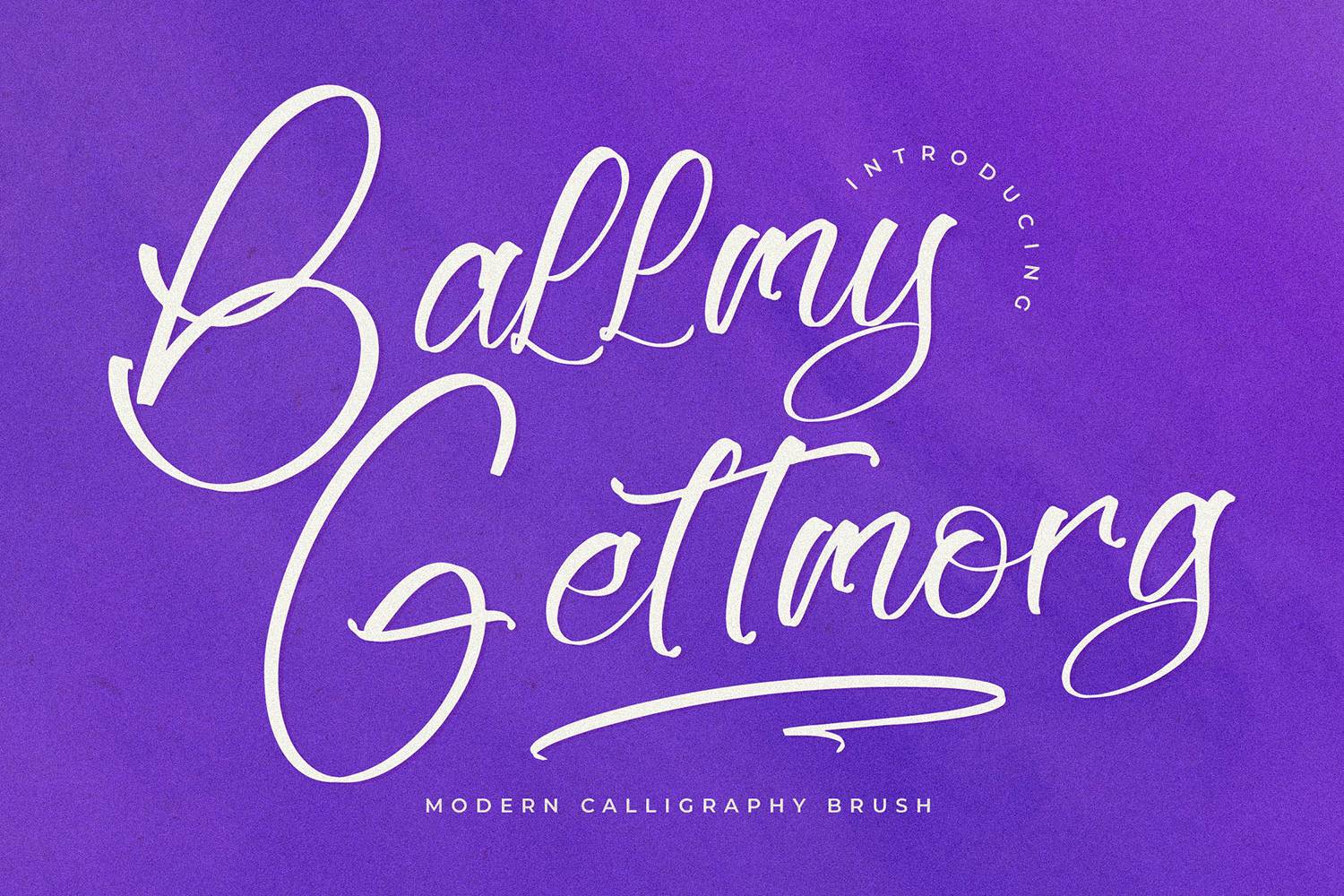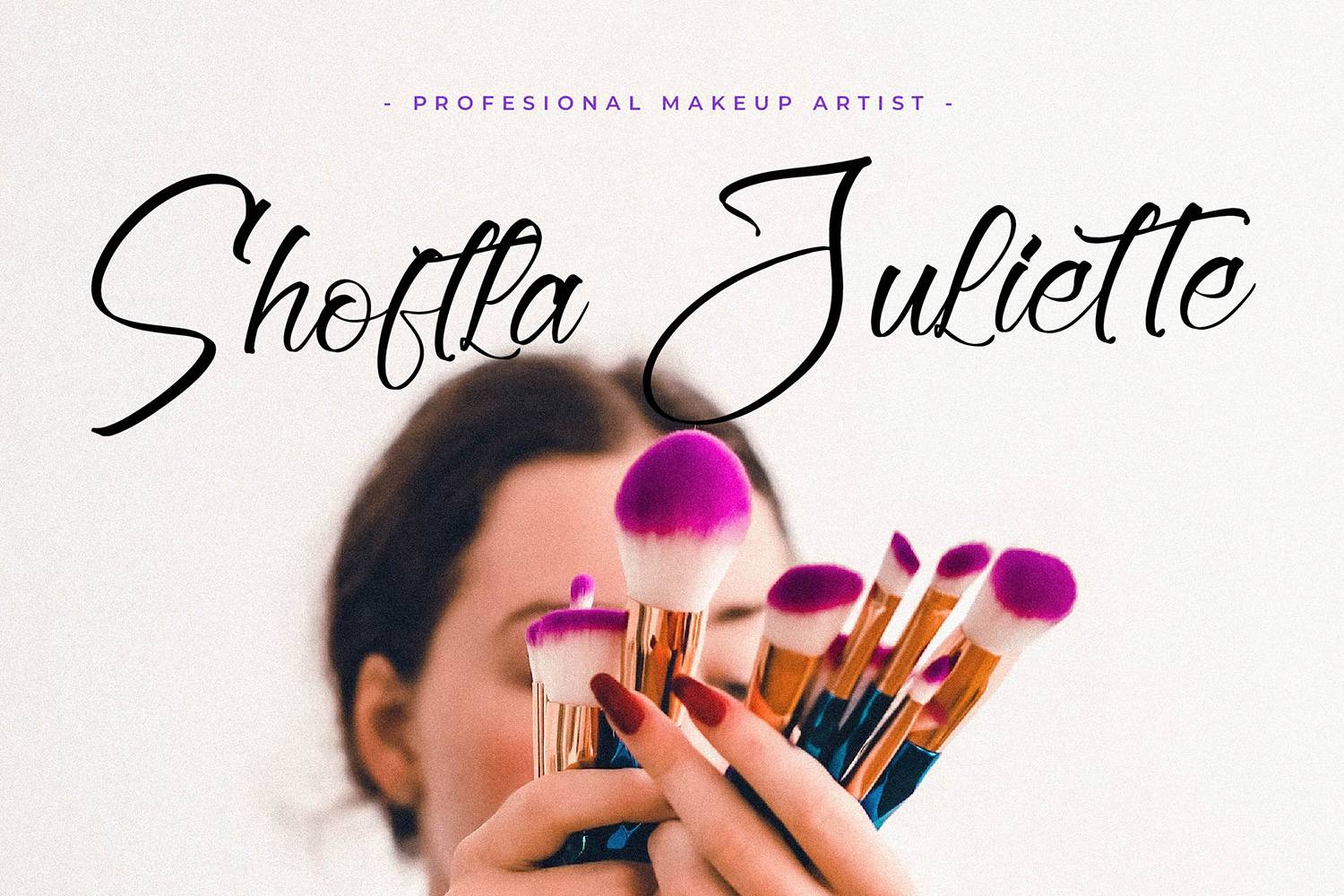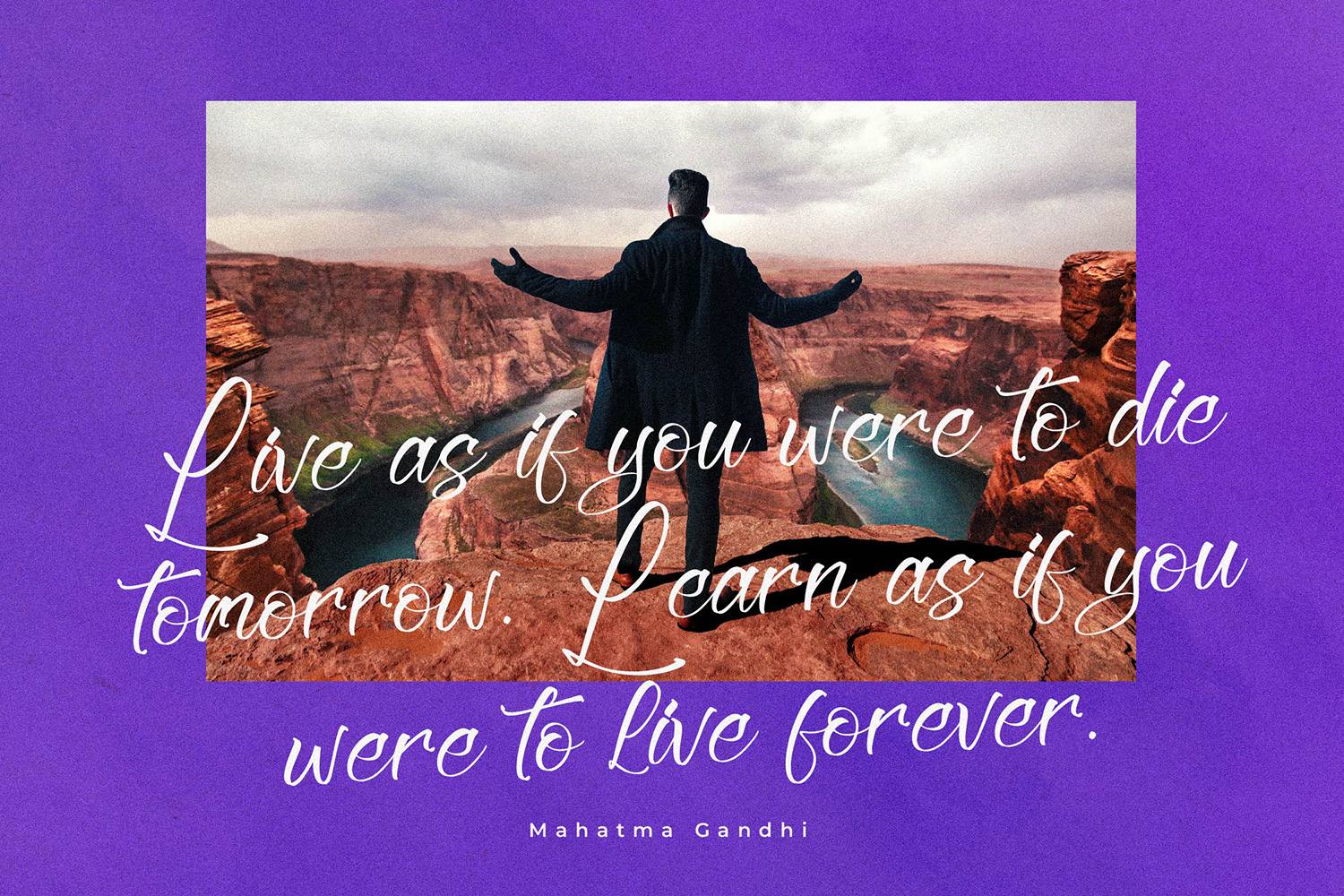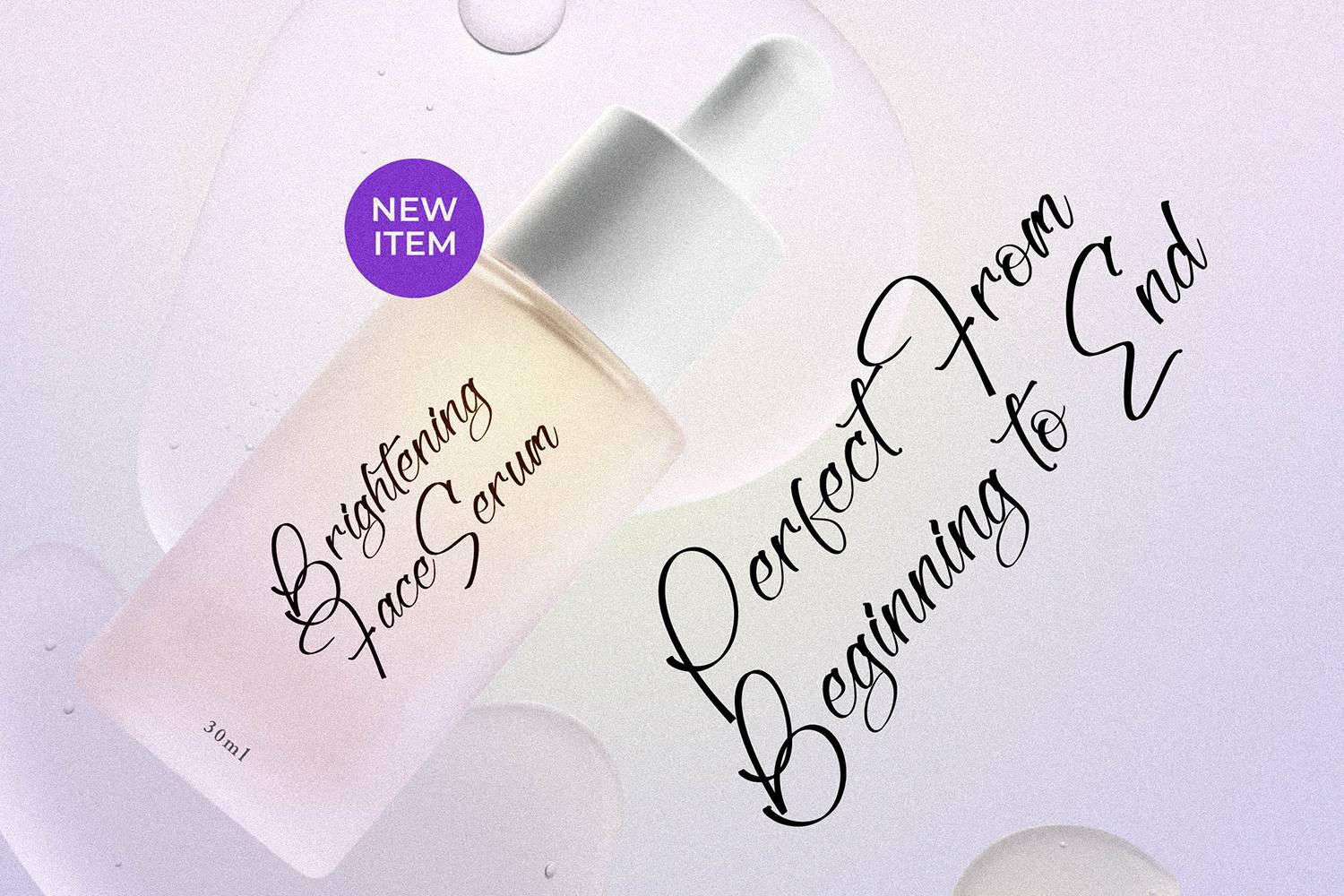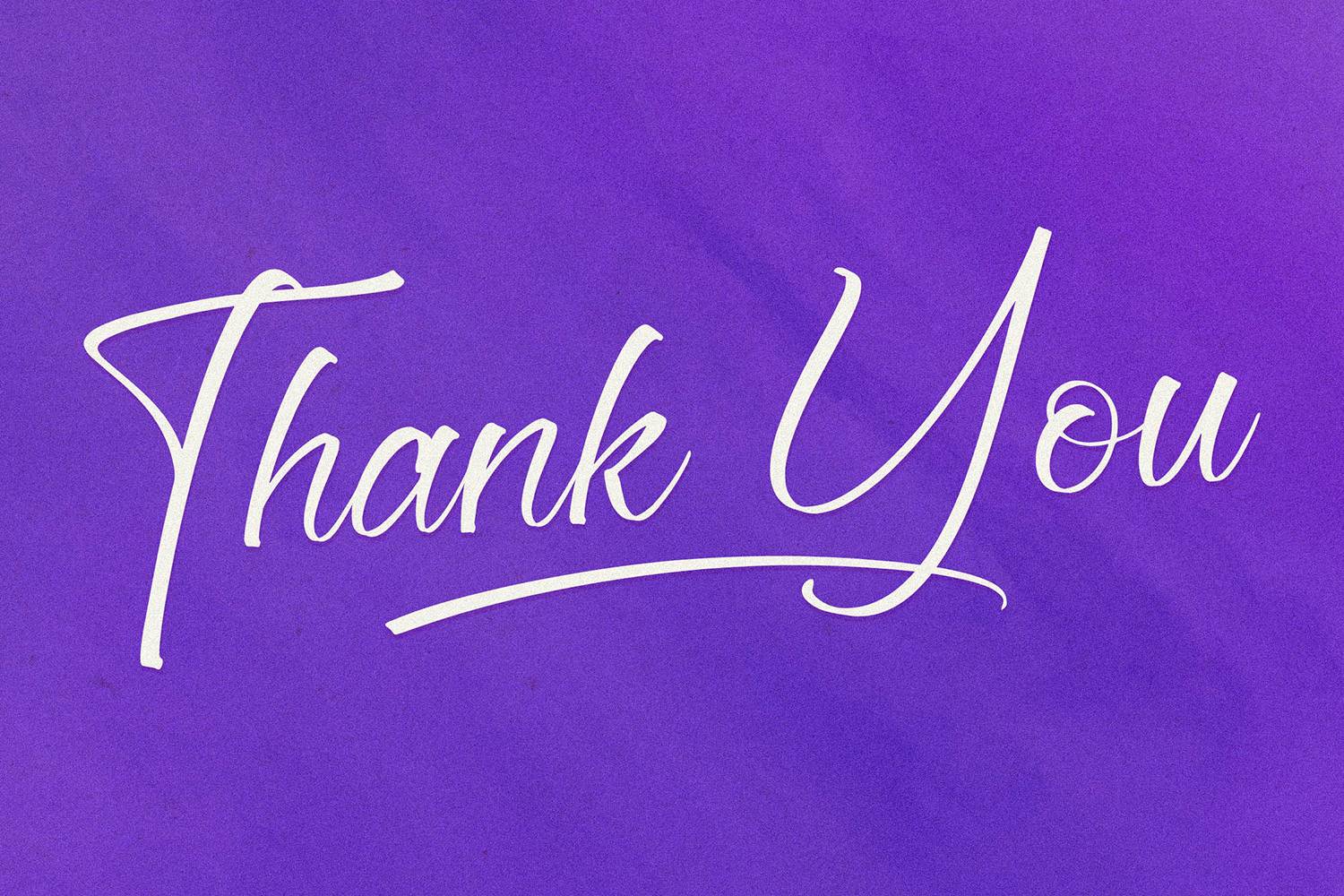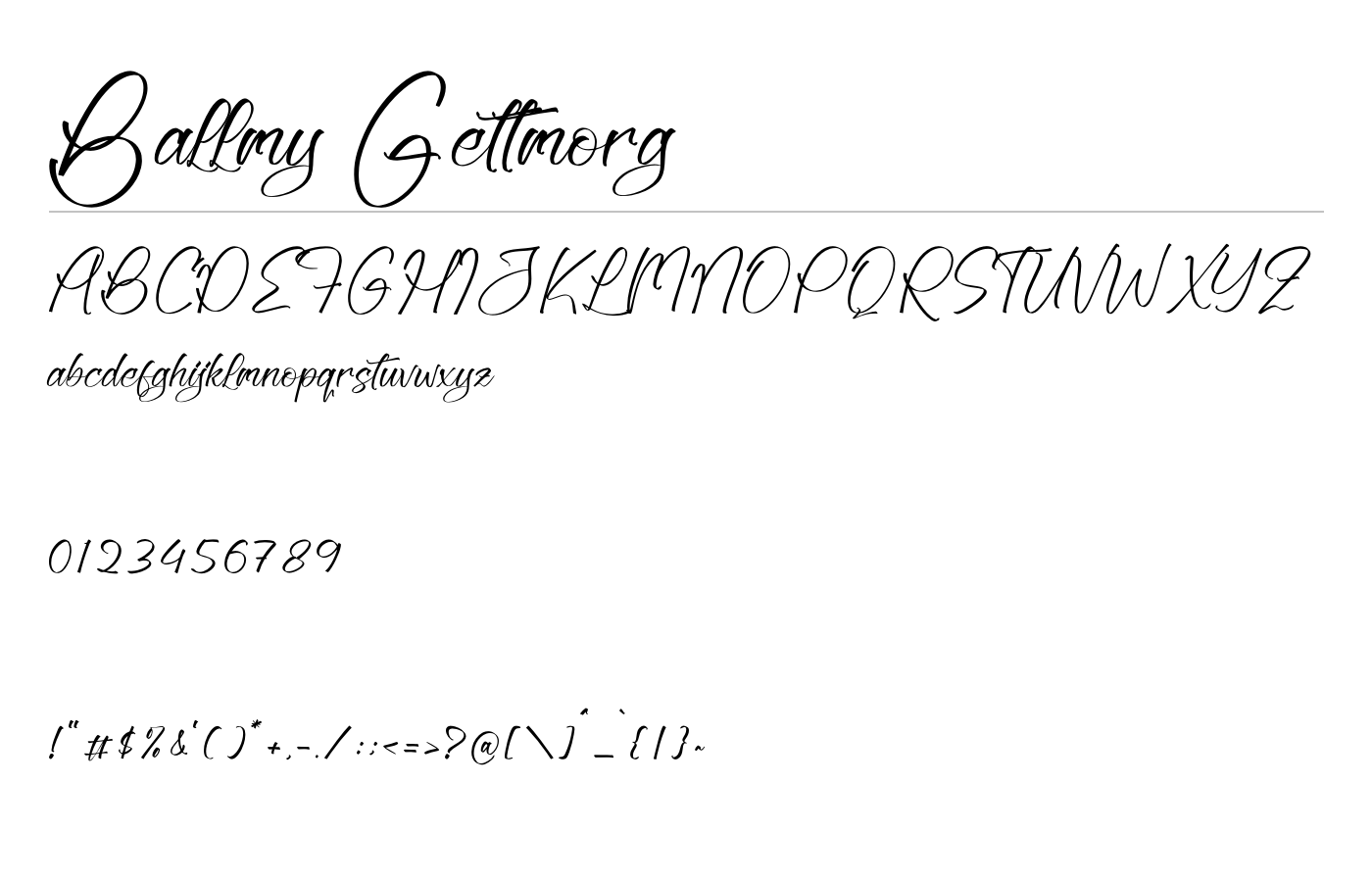
Ballmy Gettmorg is an elegant and flowing script font that features delicate, thin strokes with a natural handwritten feel. Its tall, slender letterforms and graceful curves make it ideal for sophisticated branding, invitations, and decorative headlines where a refined, personal touch is desired. This font works best in designs that aim to convey creativity, elegance, and a sense of individuality.
Ballmy Gettmorg Font
About Ballmy Gettmorg Font